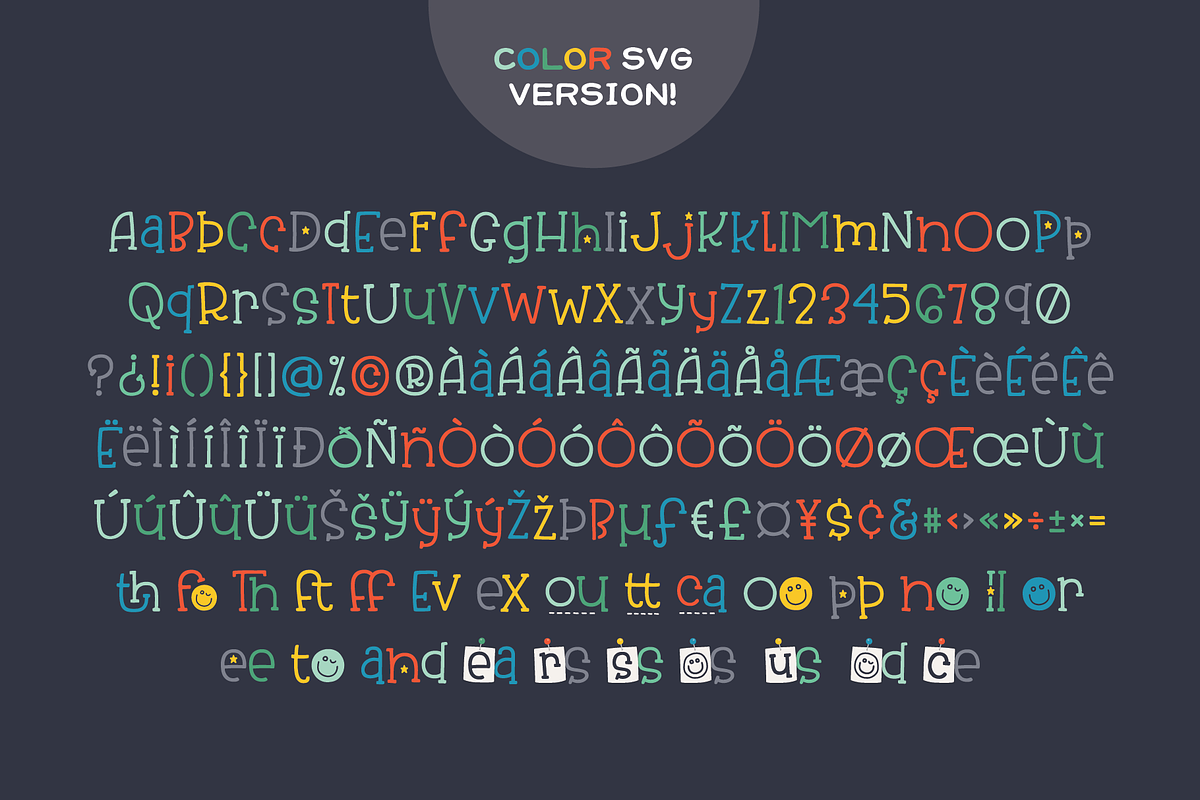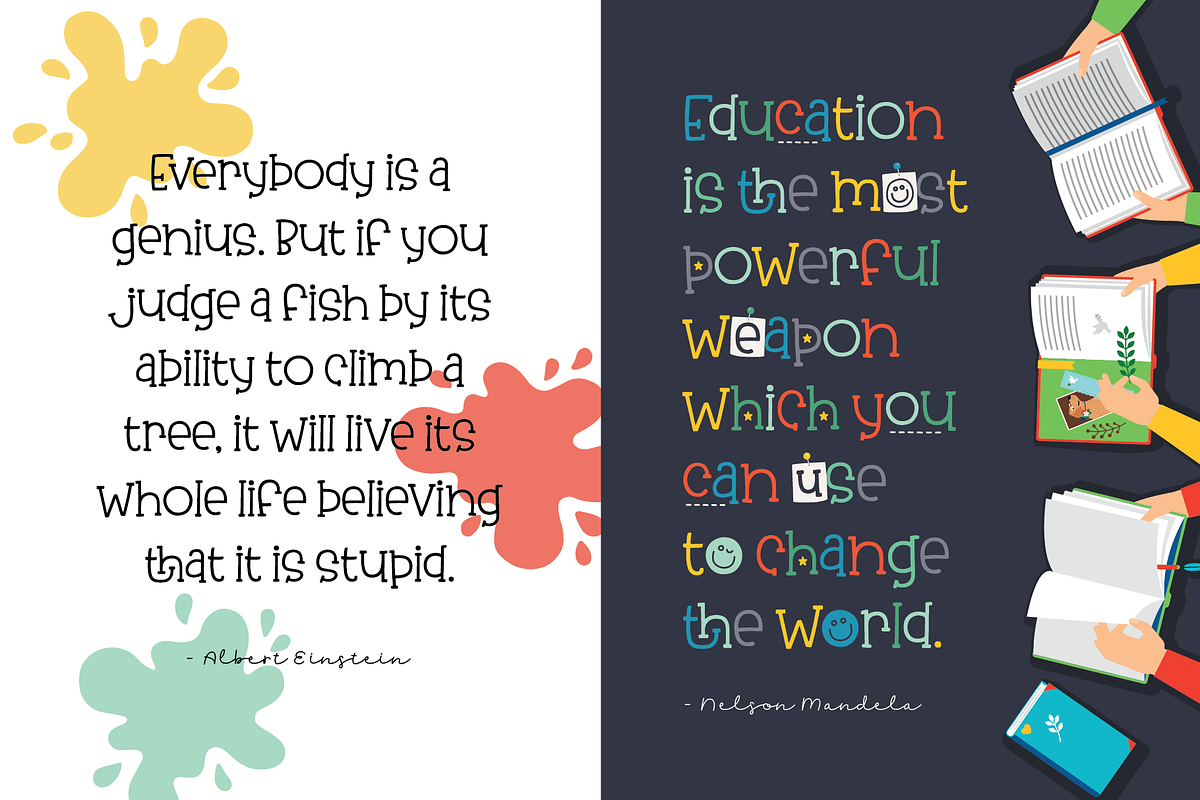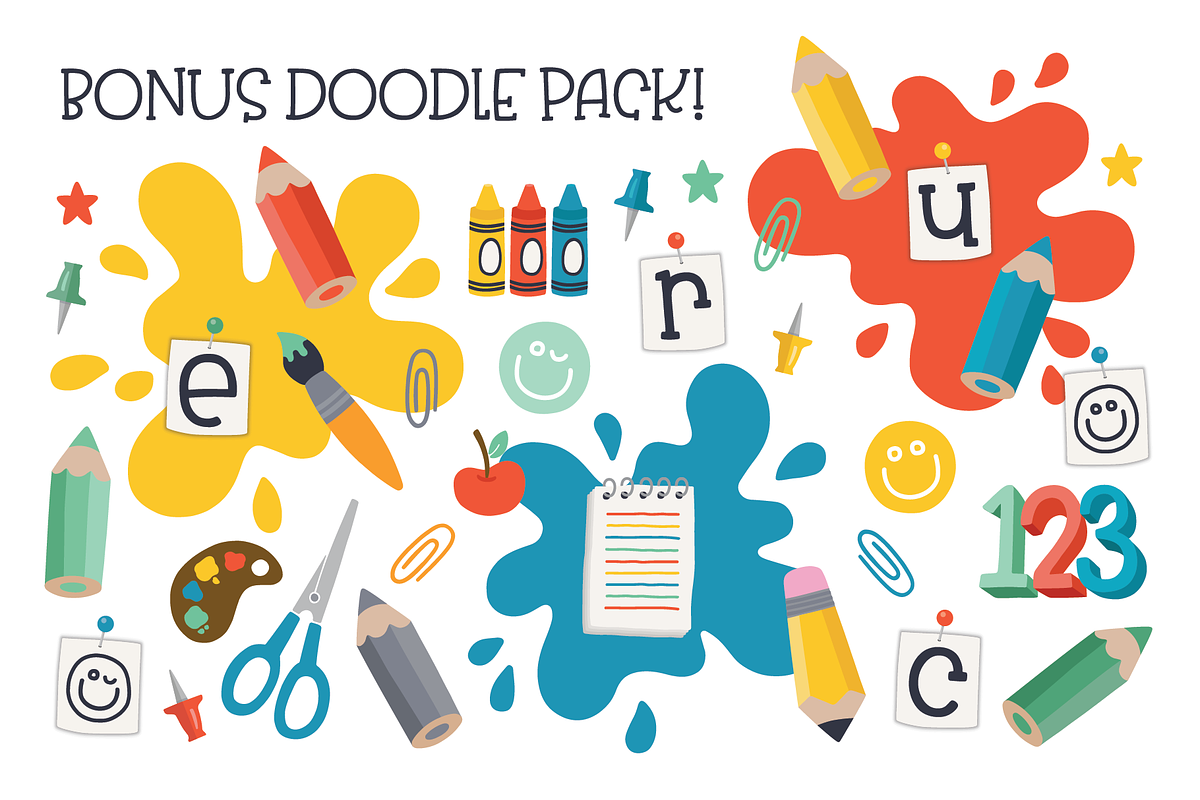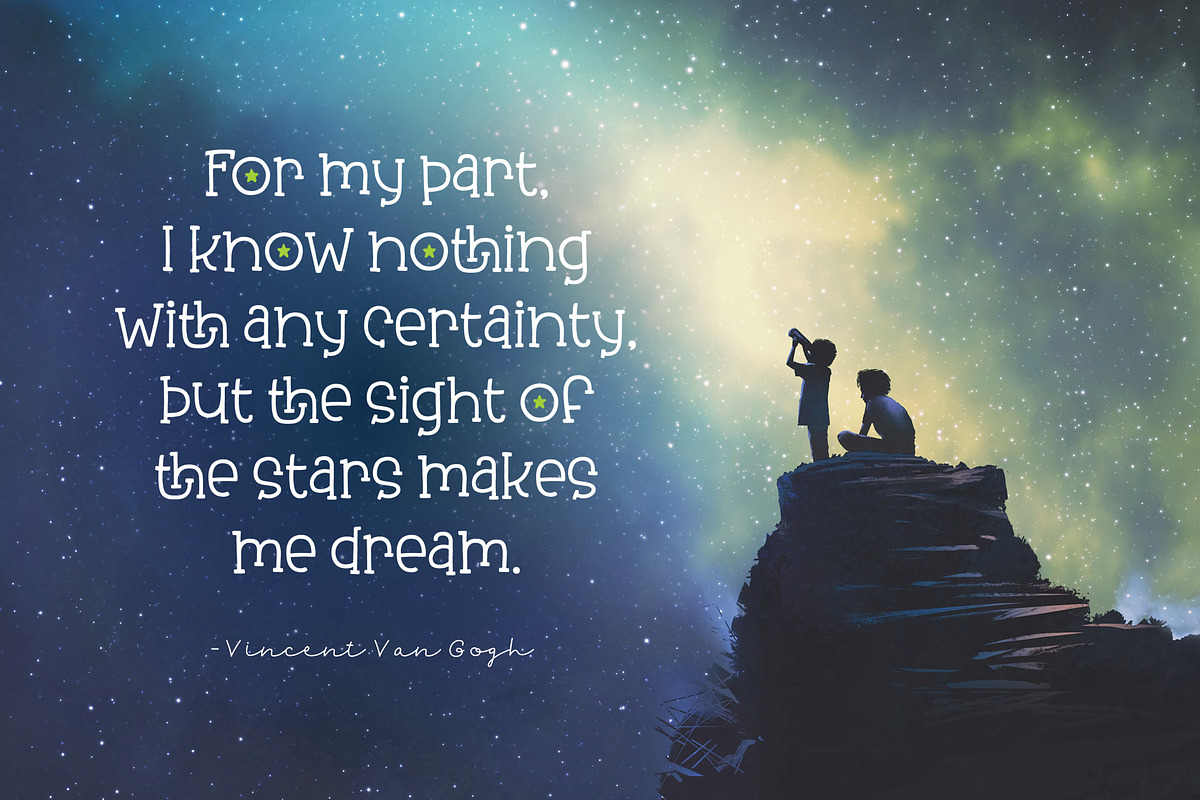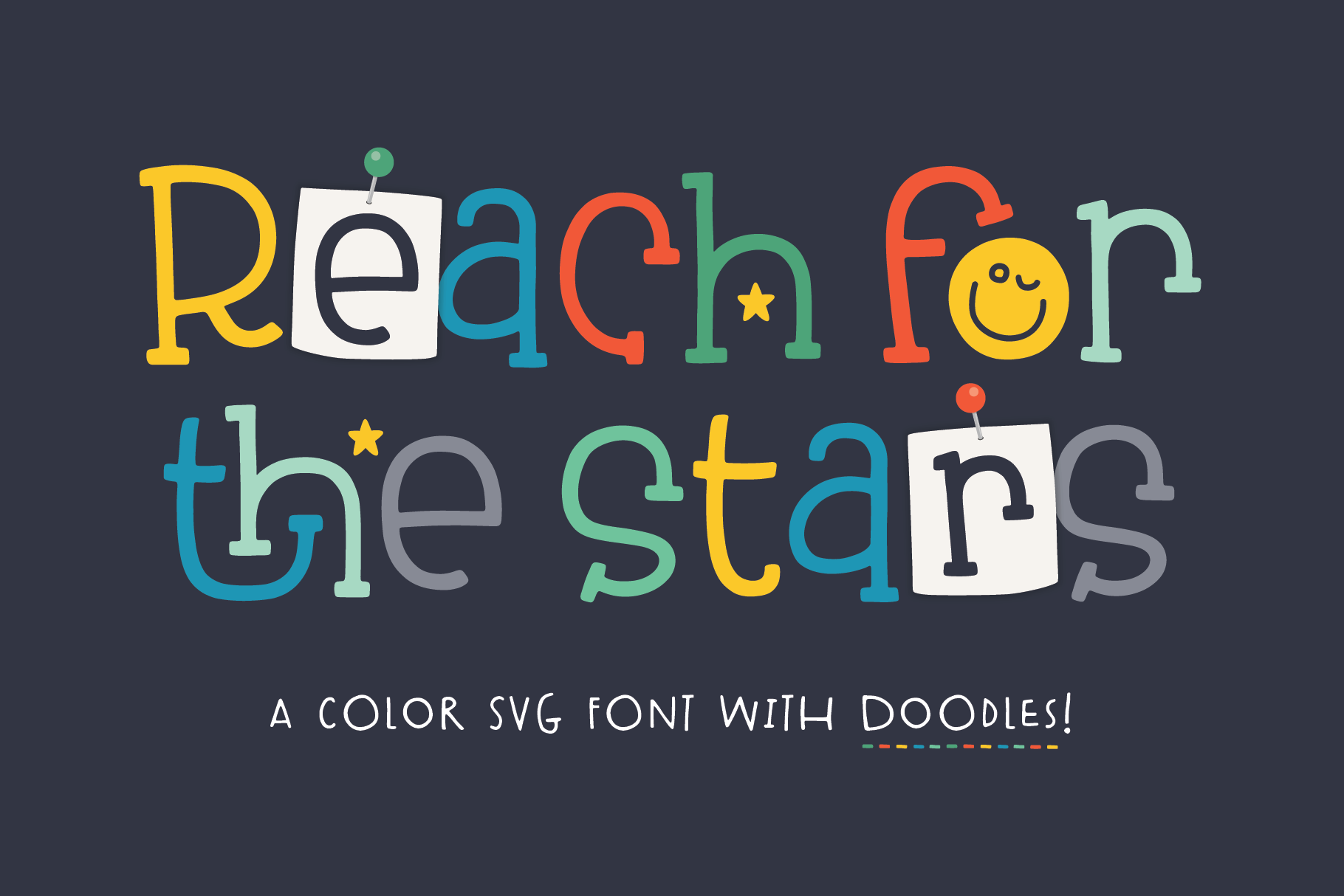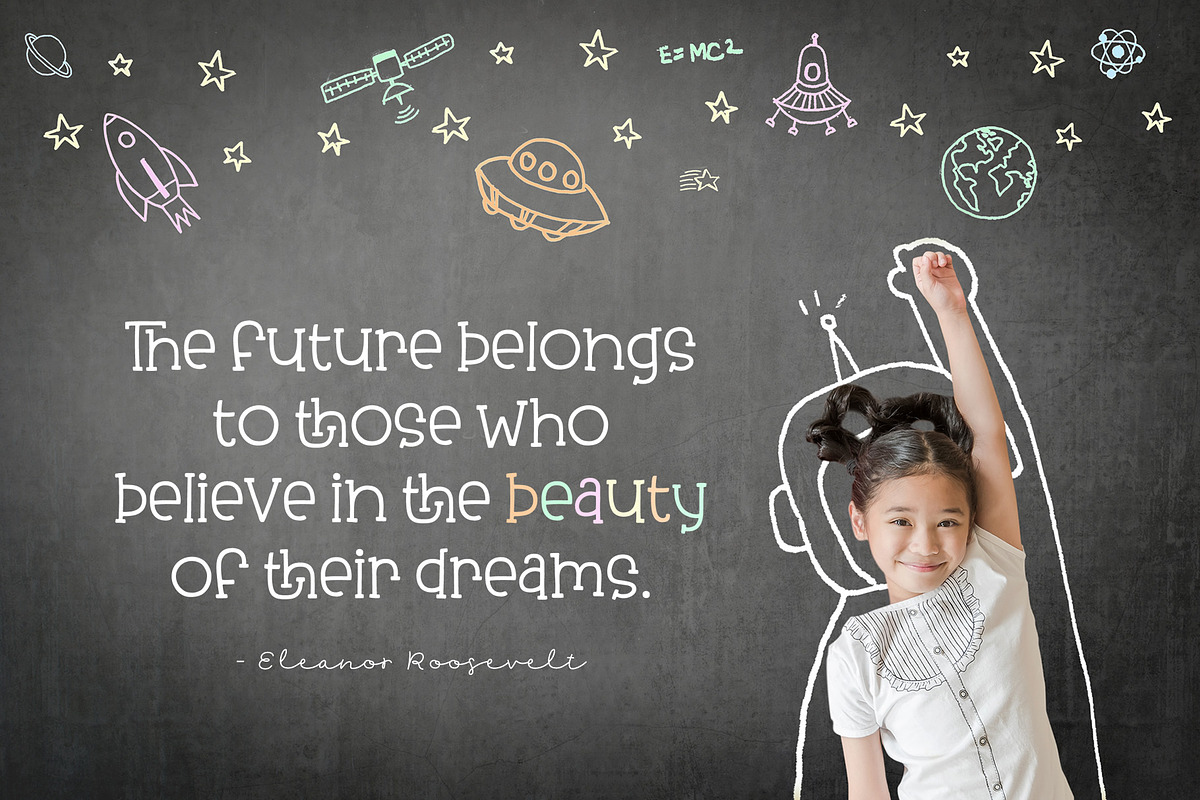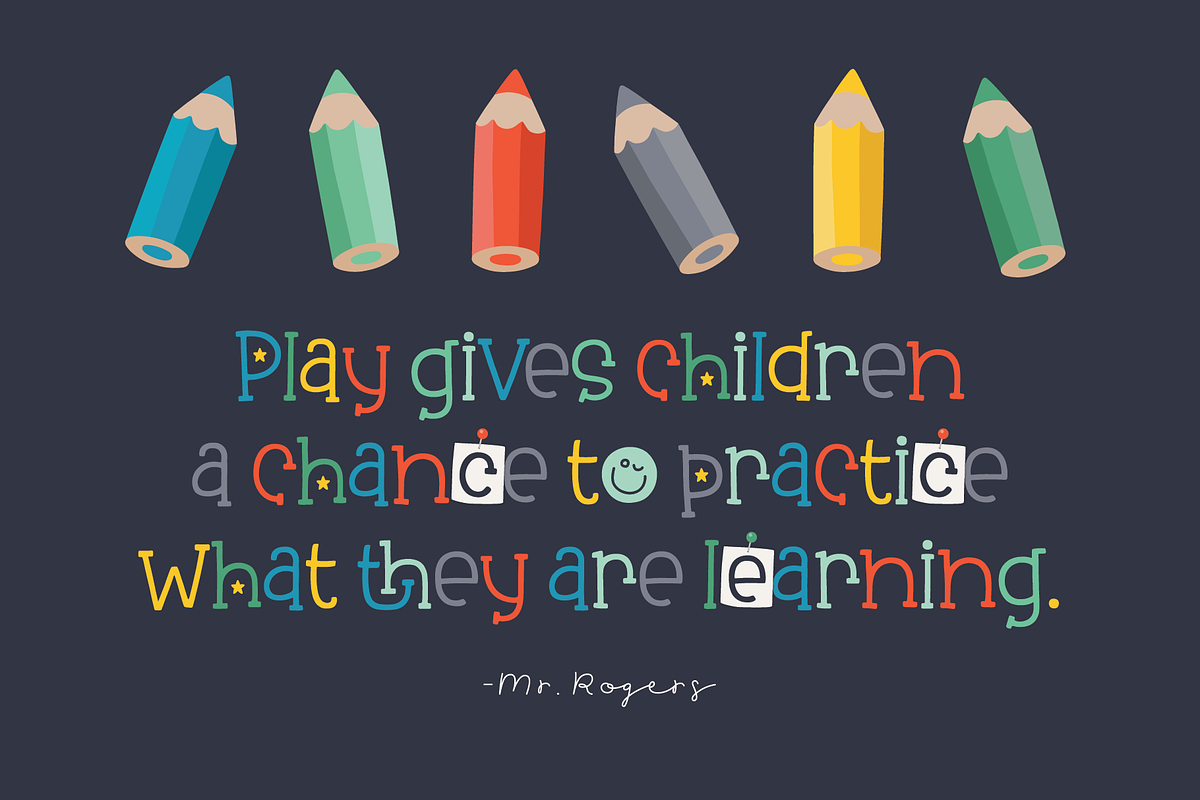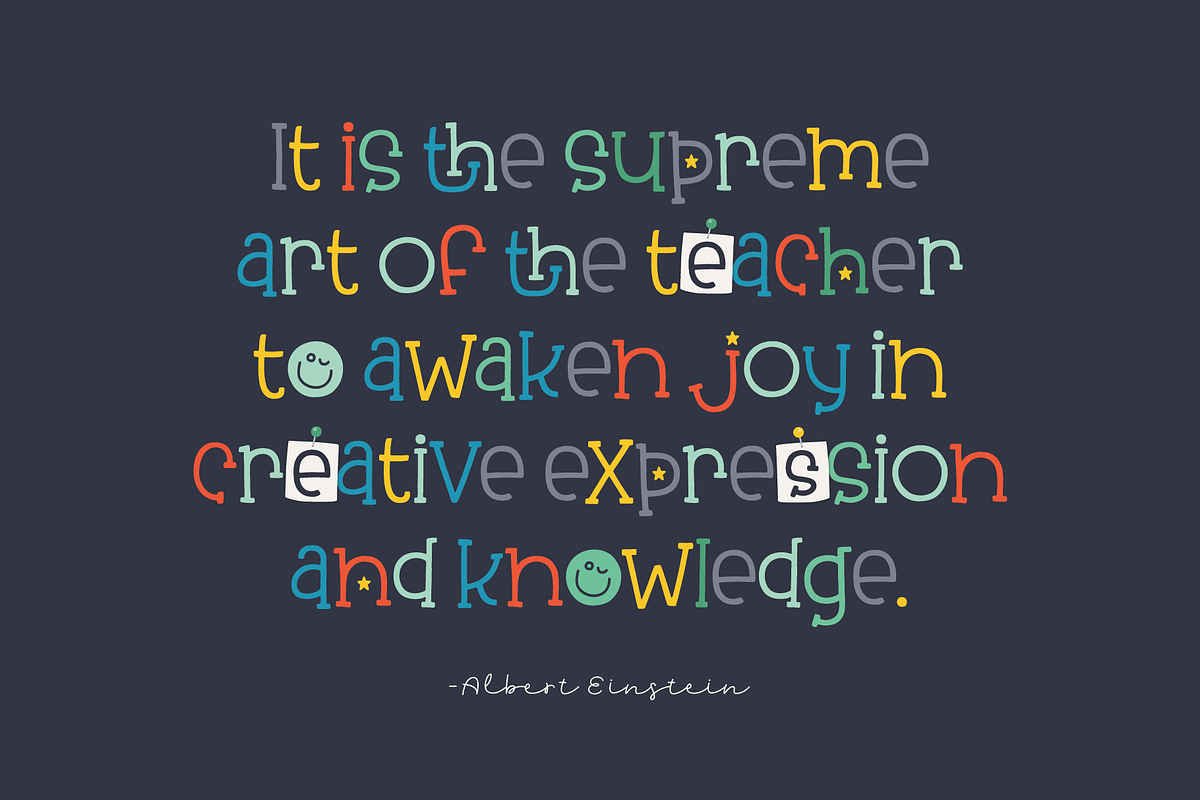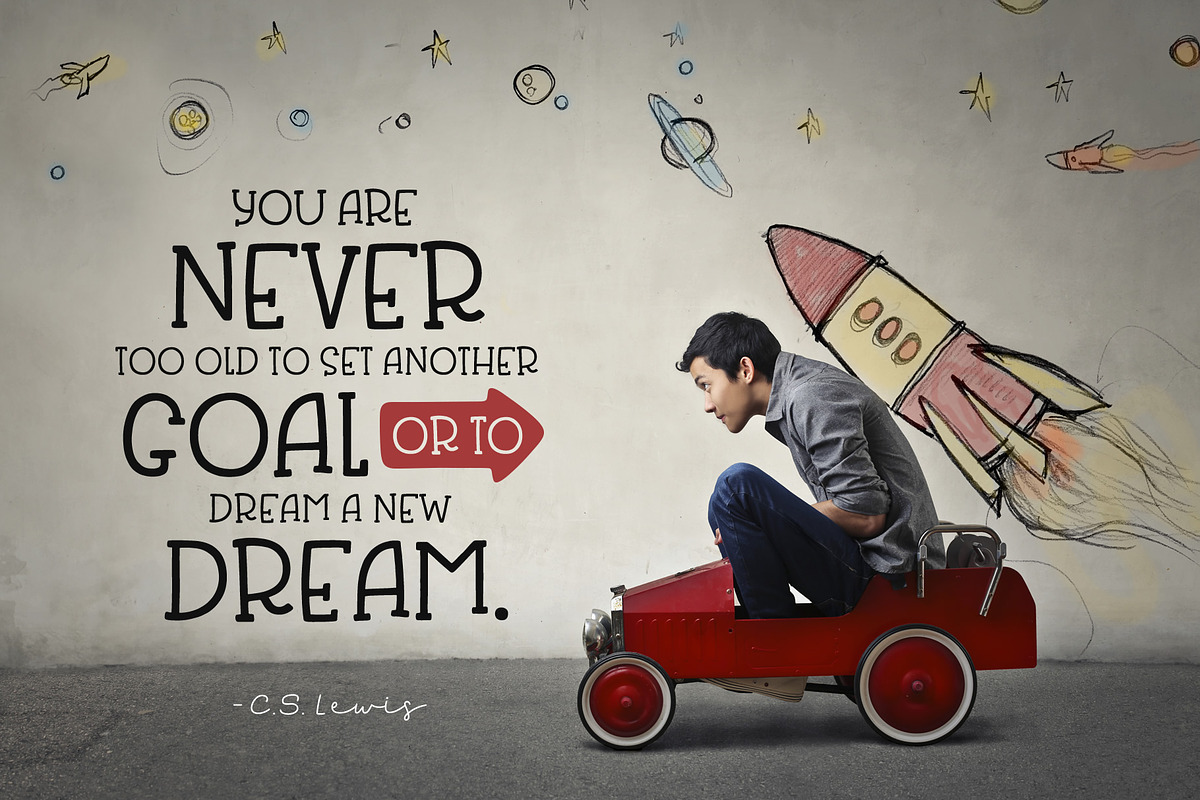
Reach for the Stars Font
Reach for the Stars is a hand-drawn slab serif font. It comes with both a regular and small-caps version. Also included is an adorable color-SVG version that includes several alternate characters and ligatures to create a really fun look. The bonus doodle pack pairs perfectly to help enhance your designs.